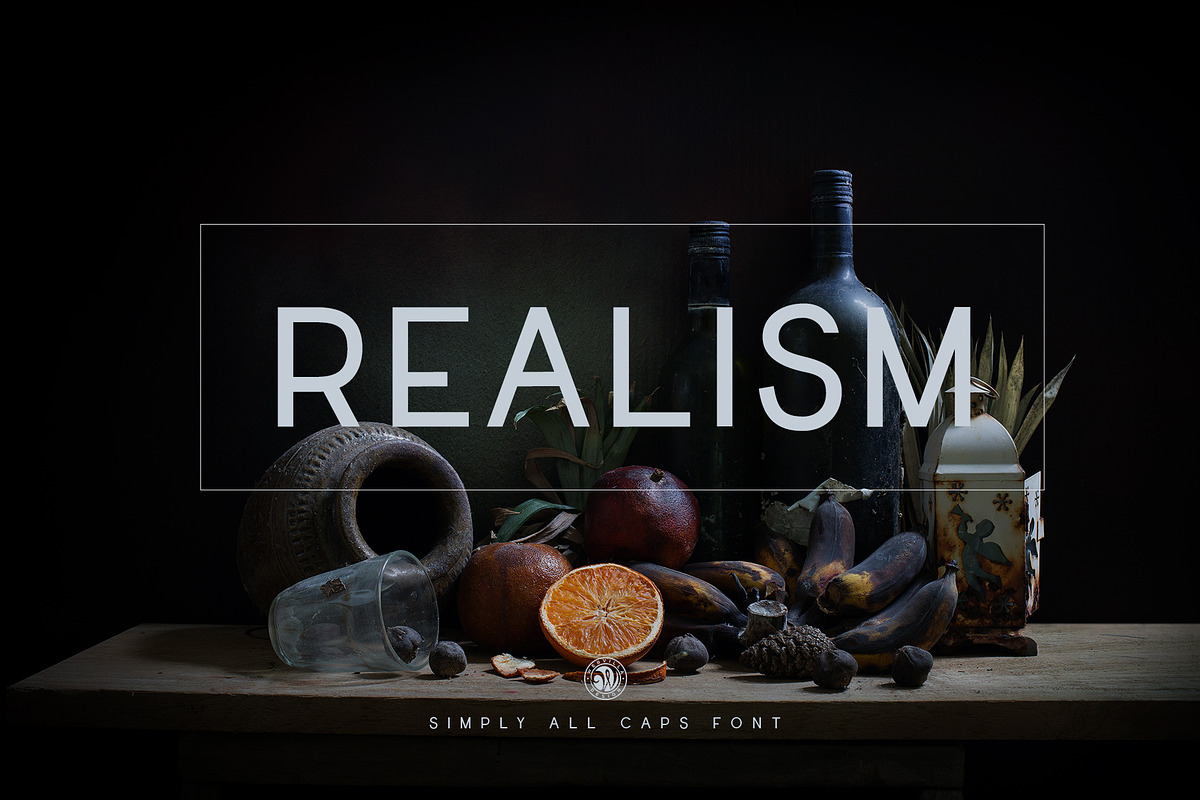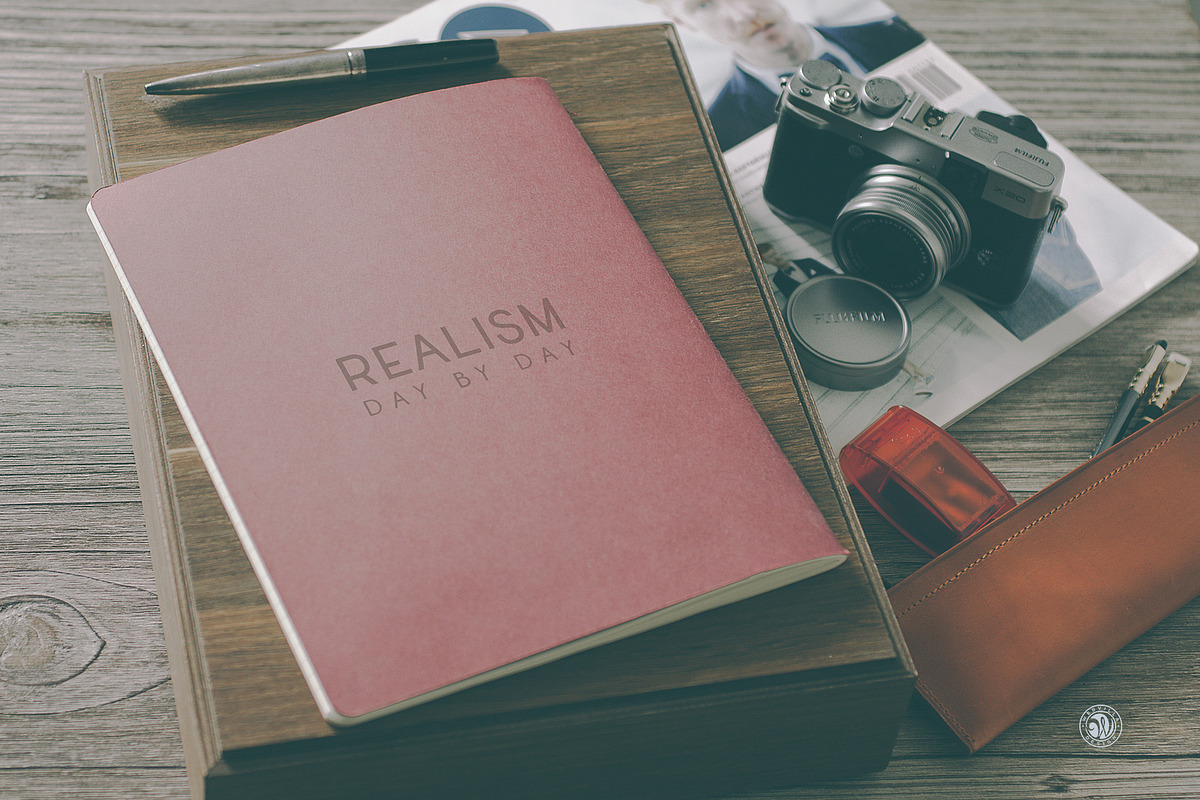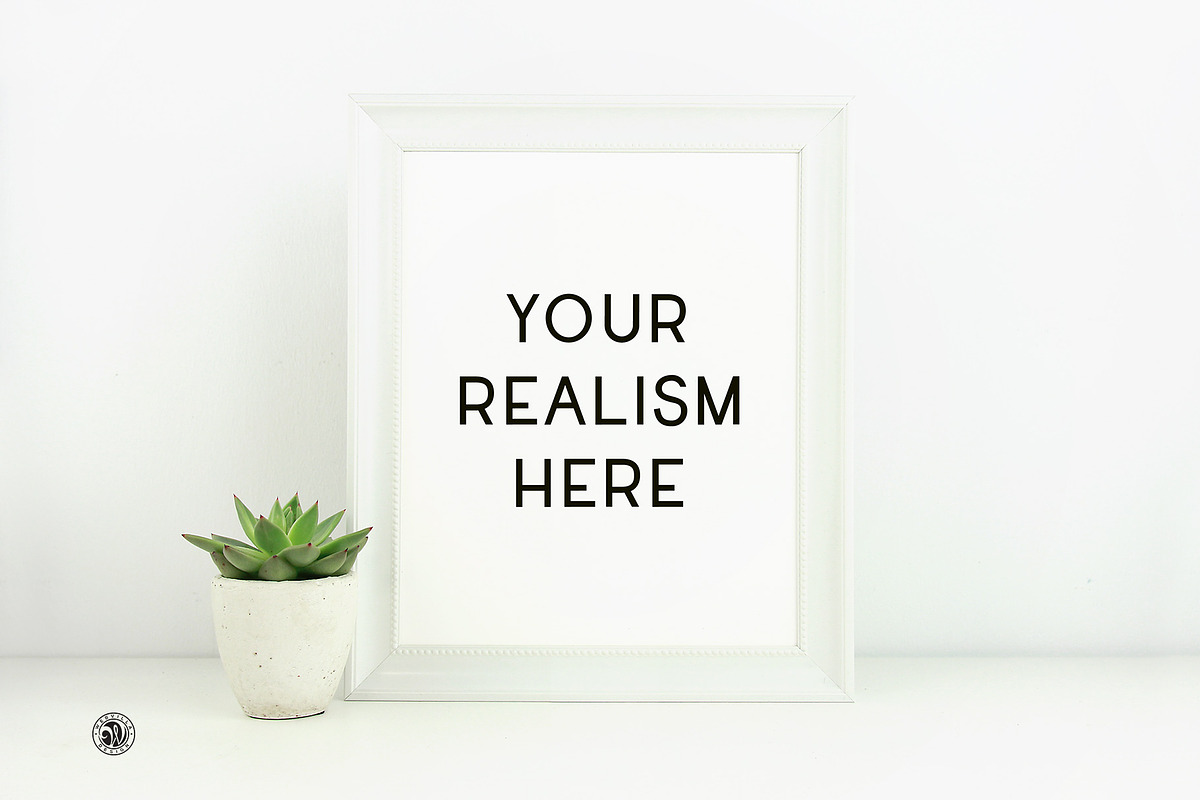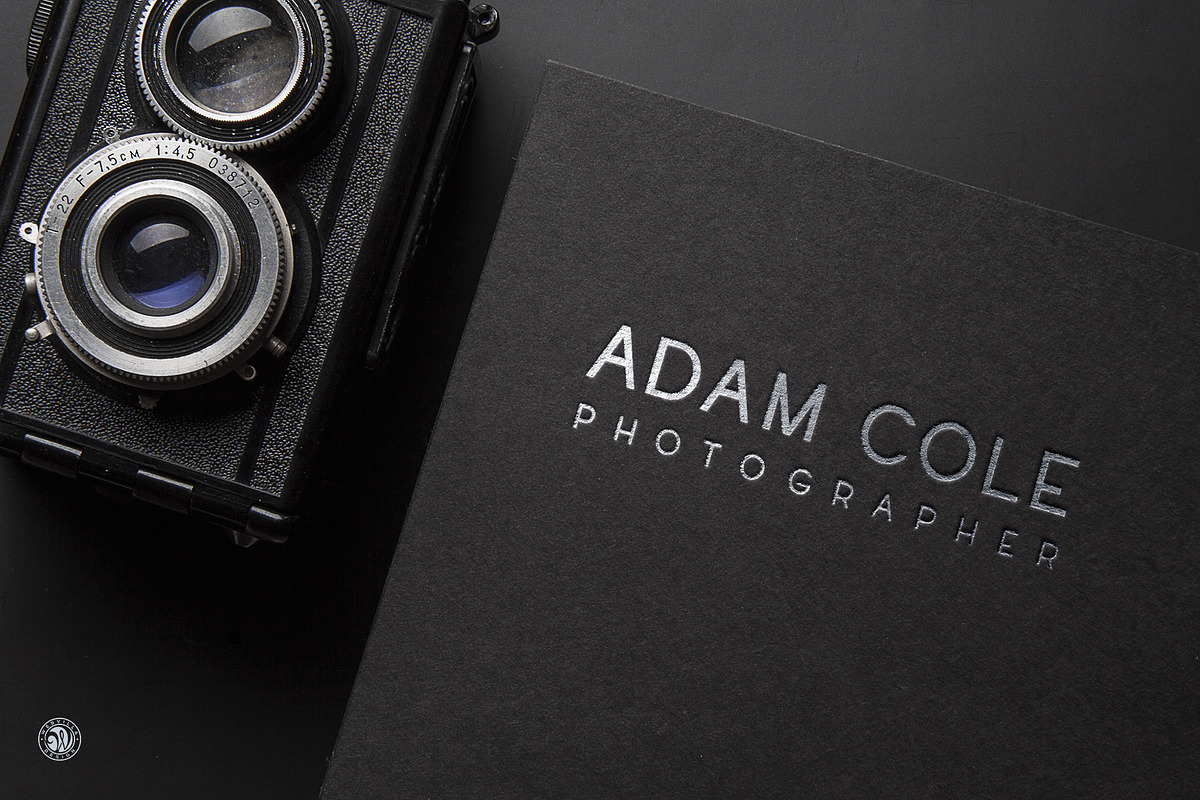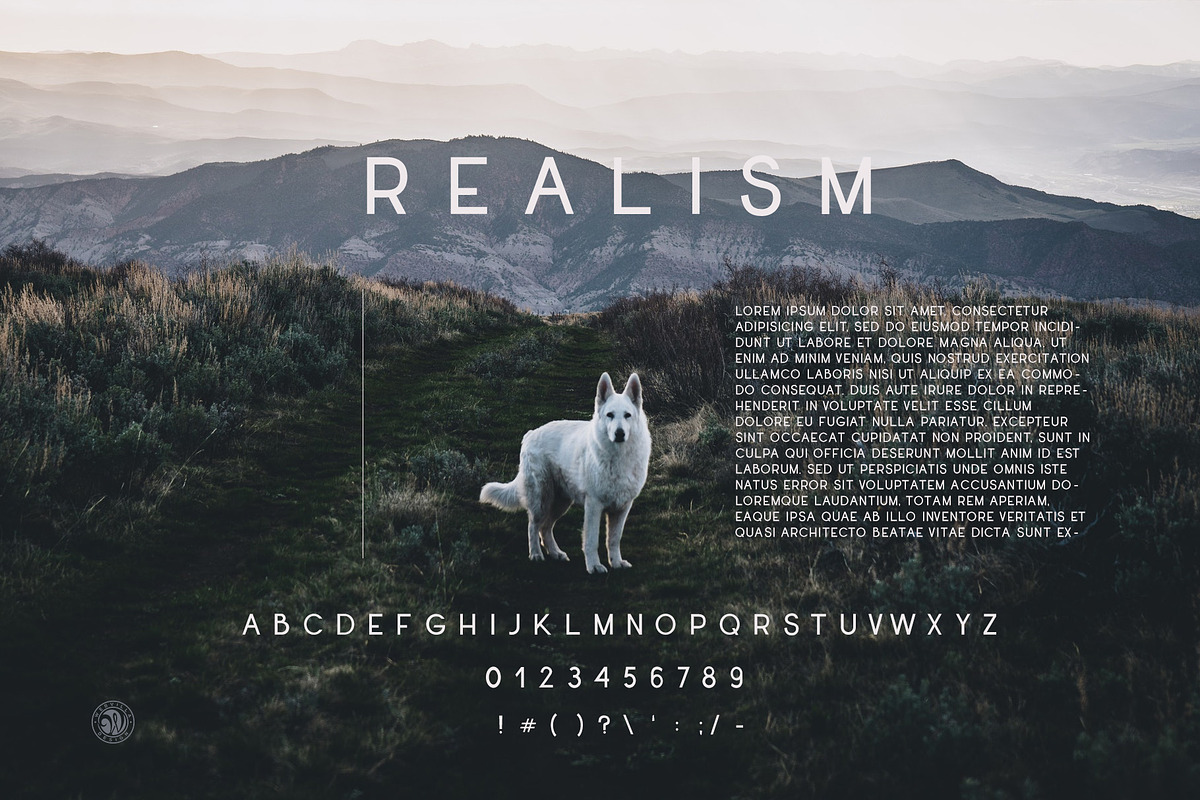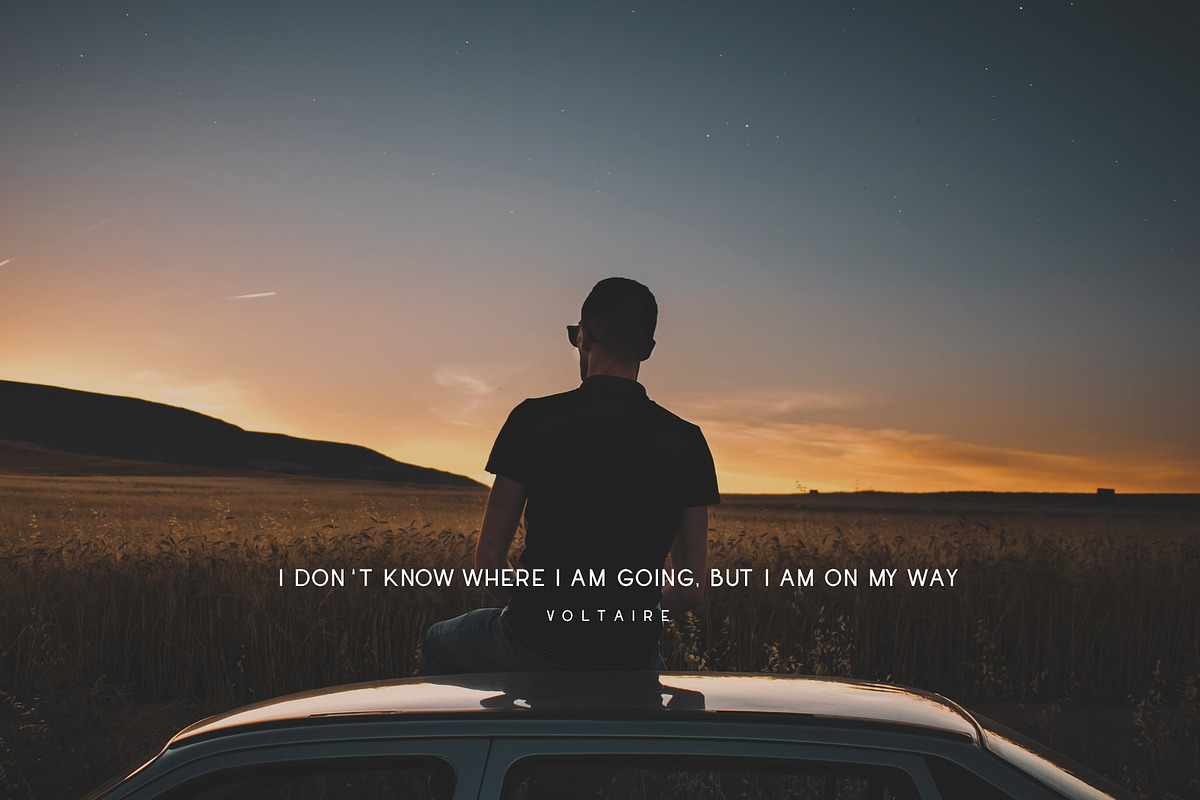
Realism Font
Realism - all caps sans serif font. It’s clean and universal. Best for logos, branding or heading.
Numbers & punctuation
Why Realism Font is worth a look
Realism Font by Webvilla Studio fits naturally into Branding, posters, packaging, typography.